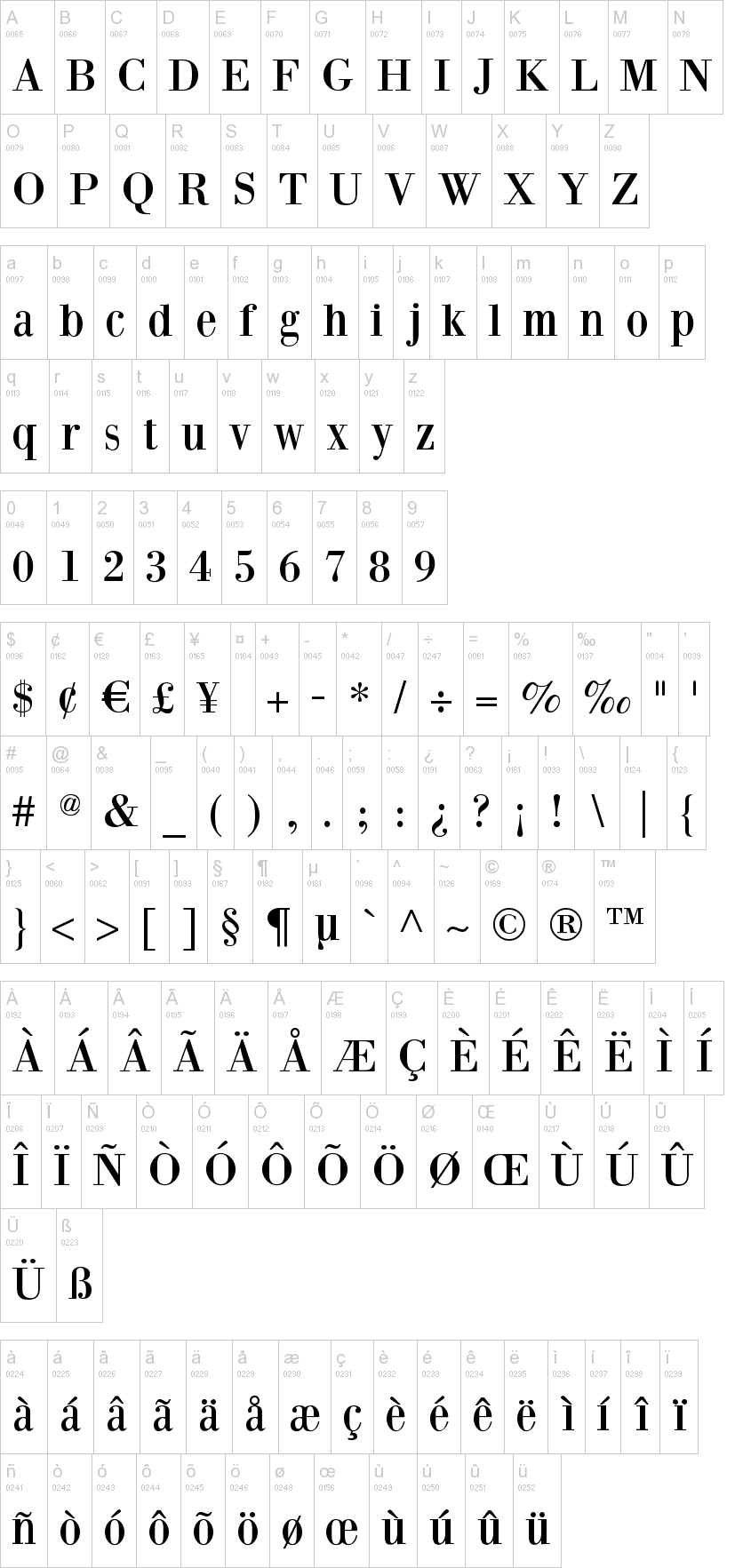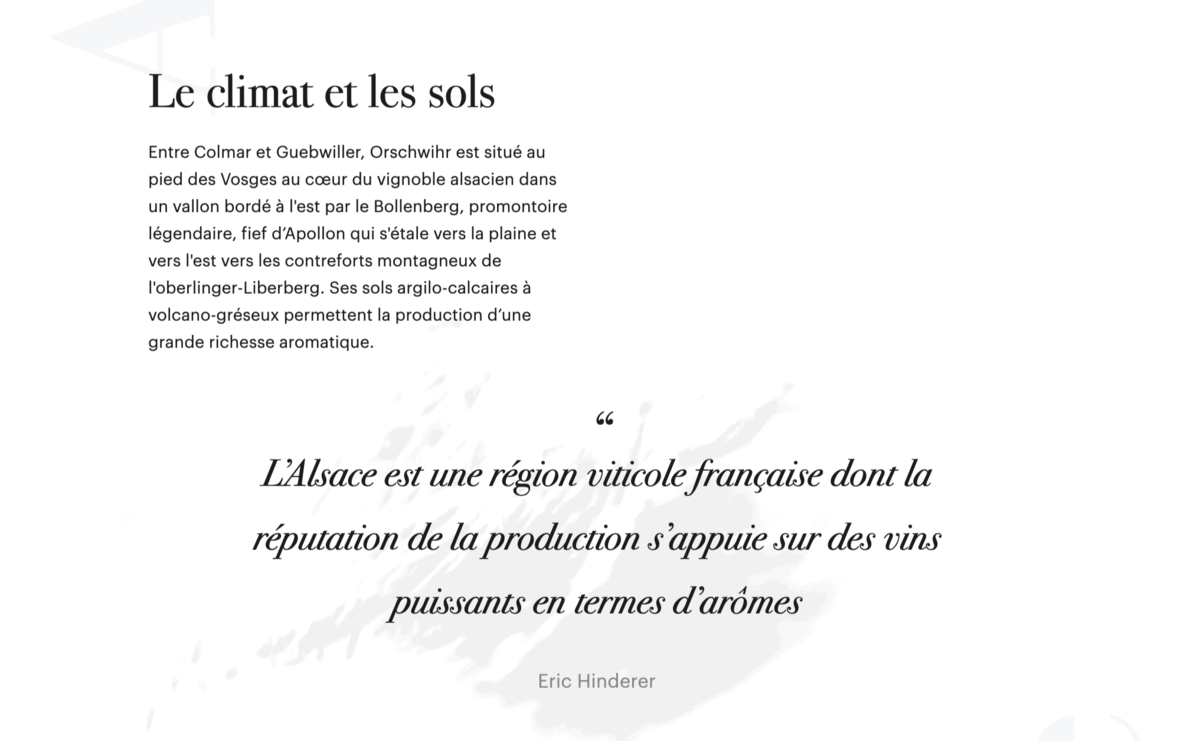
Bodoni is the first ever no compromises bodoni family built for the digital age.
5 matching requests on the forum. Bodoni xt by manfred klein. Users end up having to mix and match bodonis resulting in inconsistencies of design and quality. Download bodoni std font for pcmac for free take a test drive and see the entire character set.
The free version provides all uppercase and lowercase letters and a few special characters too. Bodoni xt is a high quality serif font that is designed by manfred klein and is available for free download personal commercial use. Every font is free to download. Submit a font tools.
Bodoni interpretations either work at display sizes and are impossible to read at text sizes or are made to be legible at text sizes but look sloppy at display sizes. The bodoni font has been downloaded 840364 times.